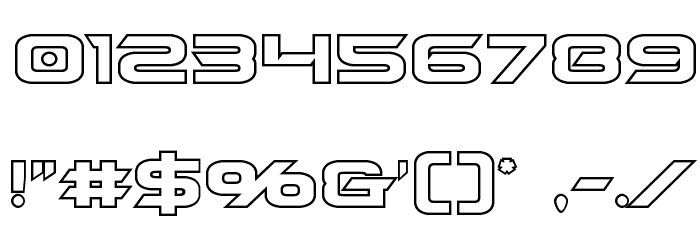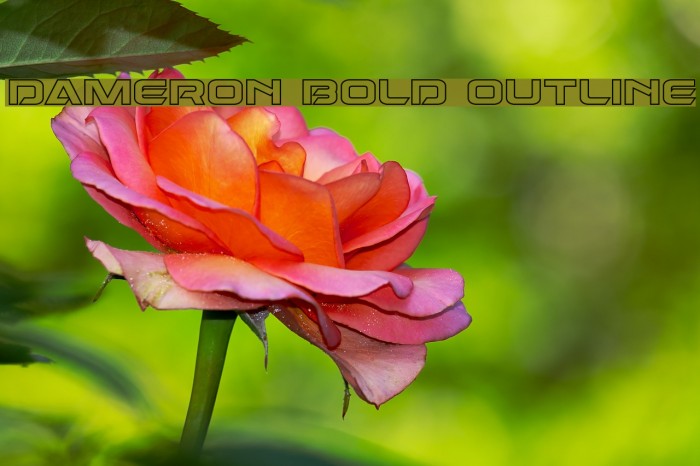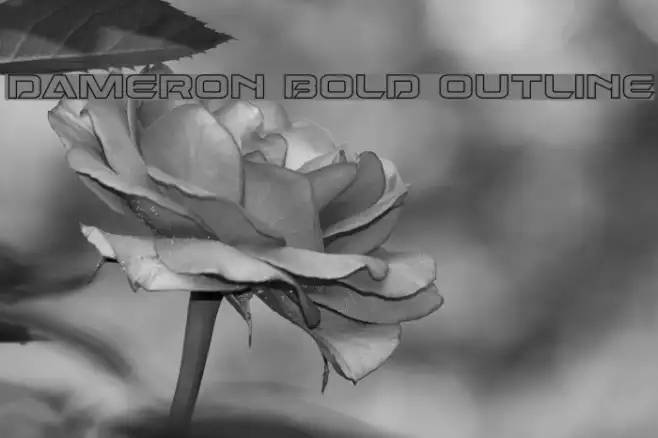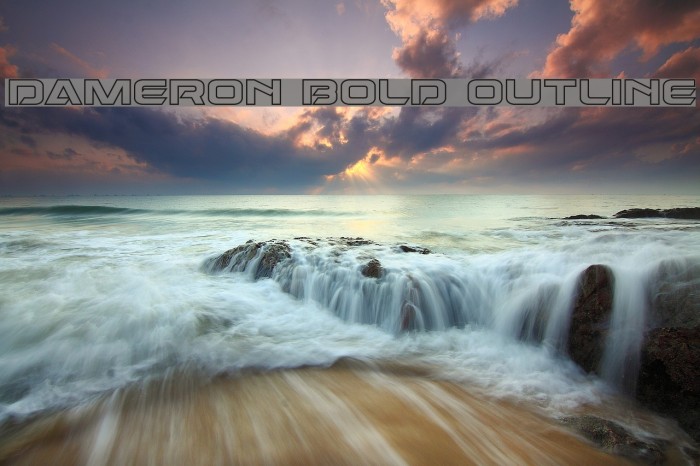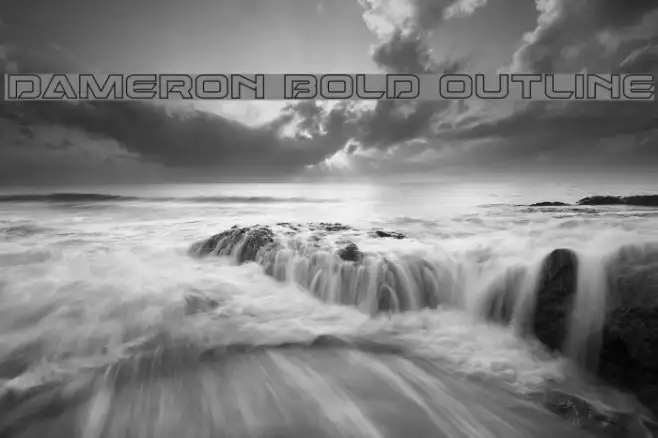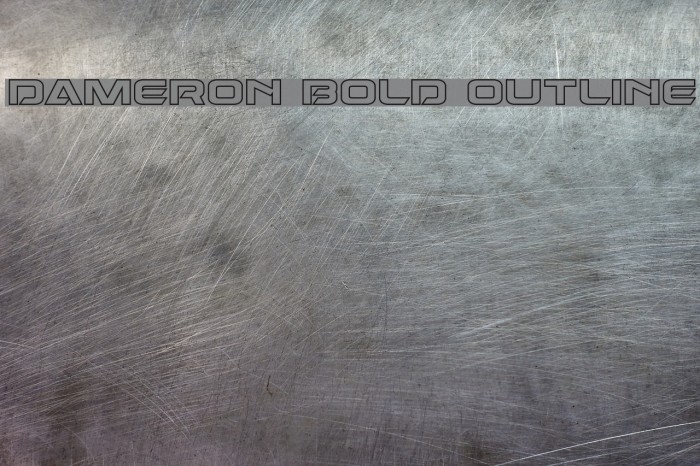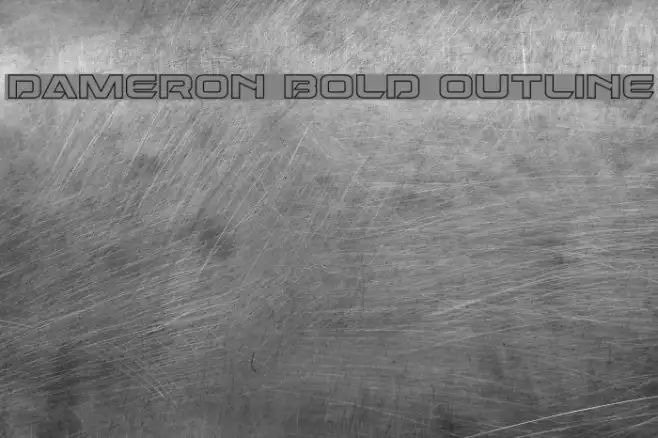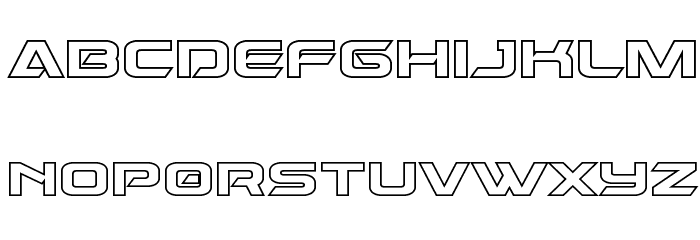
Dameron Bold Outline Font
This font features a bold, outlined style with a futuristic and geometric appearance. Each character is crafted with precision, showcasing sharp angles and clean lines that create a sense of modernity and innovation. The uppercase letters are particularly striking, with a uniform height and width that contribute to a cohesive look. The lowercase letters maintain the same geometric style, ensuring consistency across the font. Numbers and special characters are designed to match the bold outline, making them stand out while remaining legible. This font is ideal for projects that require a strong visual impact and a contemporary aesthetic.
A bold, outlined font with a futuristic and geometric design.
• Proposed Projects: Ideal for branding, posters, sci-fi themed designs, and digital interfaces.
• Category: Decorative/Display
• Overall Style: Modern
• Use Case: Headlines, Logos, Posters